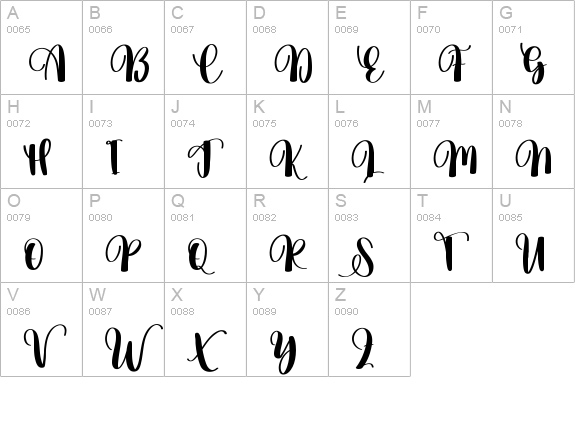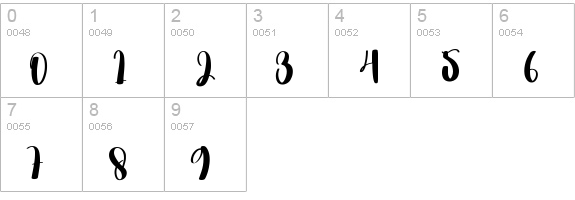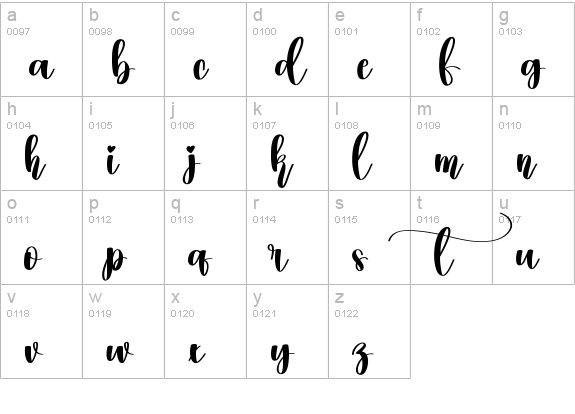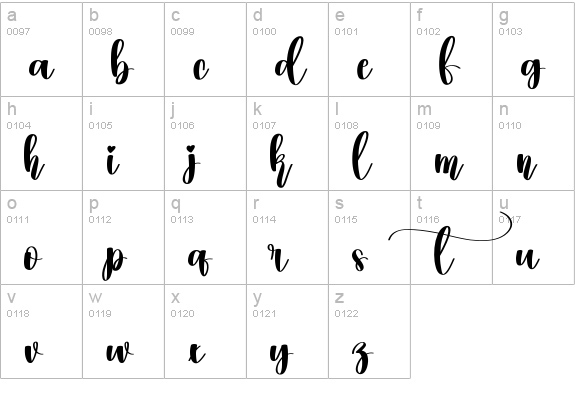
Hello Calligraphys Font Details
Hello Calligraphys font is a stunning and elegant script typeface that exudes sophistication and charm. With its flowing lines and delicate curves, this font is perfect for adding a touch of class to your designs. Whether you're working on wedding invitations, branding materials, or any other project that calls for a touch of elegance, Hello Calligraphys is sure to impress.